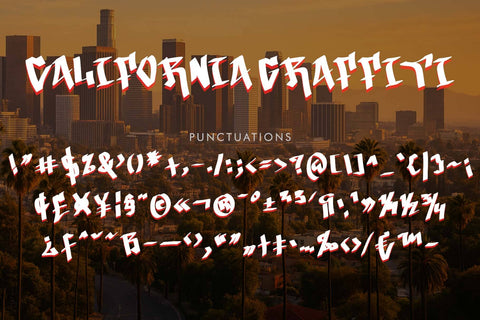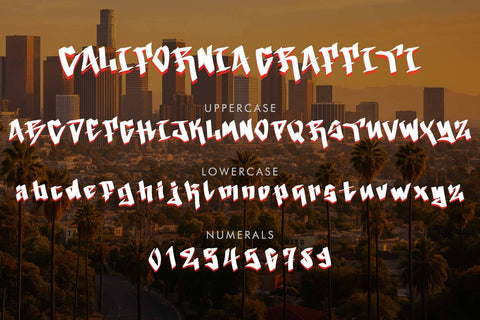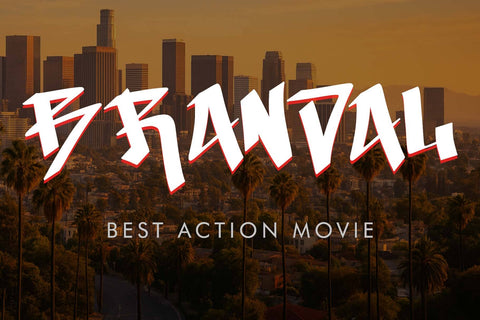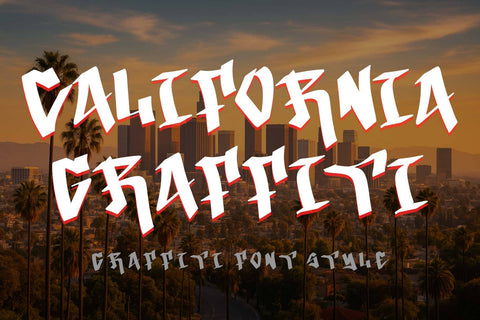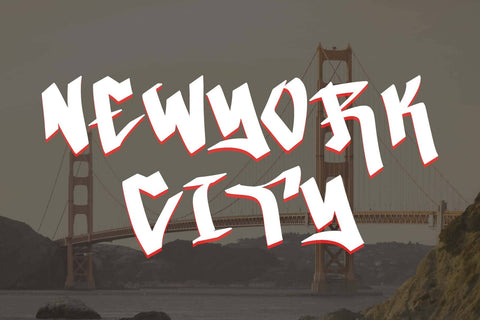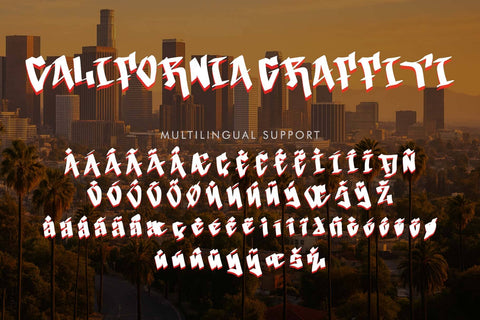
California Graffiti
"California Graffiti" is a unique and elegant graffiti font. It features uppercase and lowercase letters, numerals, punctuation, and multilingual support. It's perfect for Christmas, Halloween, winter, spring, New Year, tattoos, stickers, banners, posters, logos, prints, branding, photography, holidays, vacations, street graffiti, wall graffiti, and more.